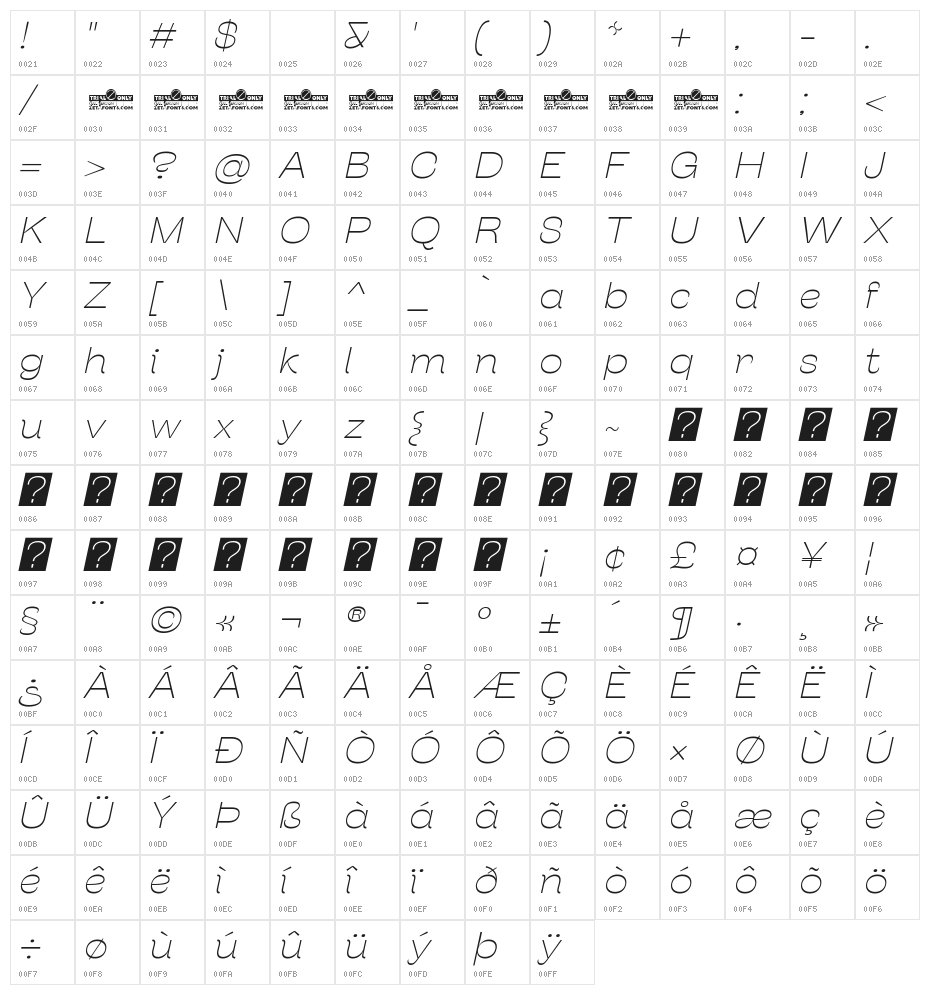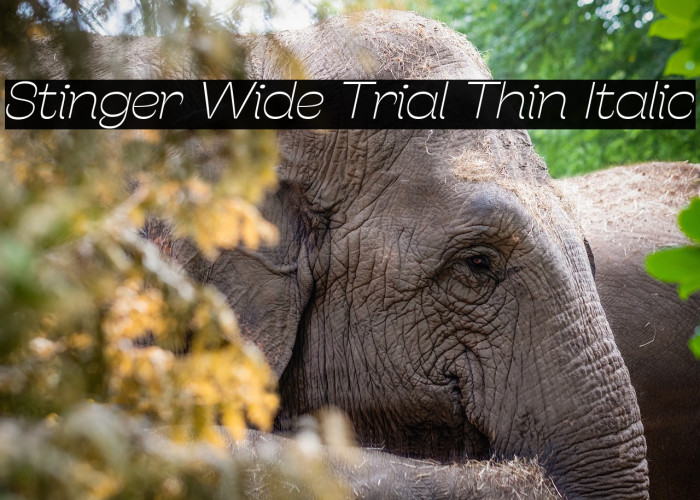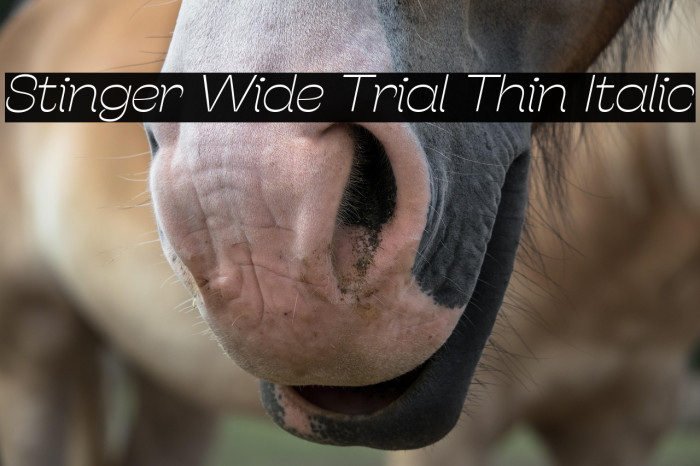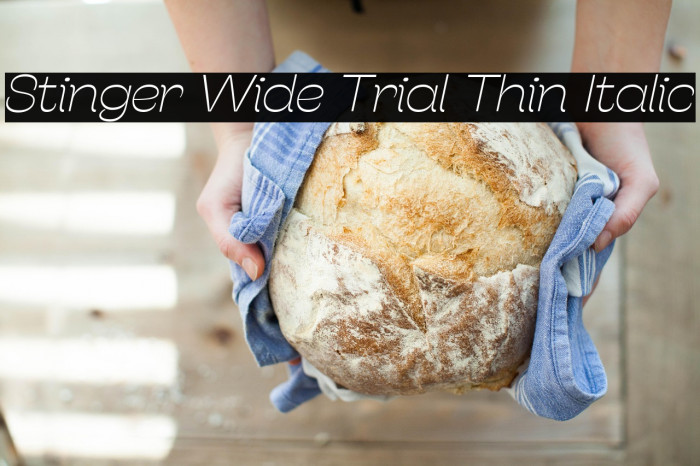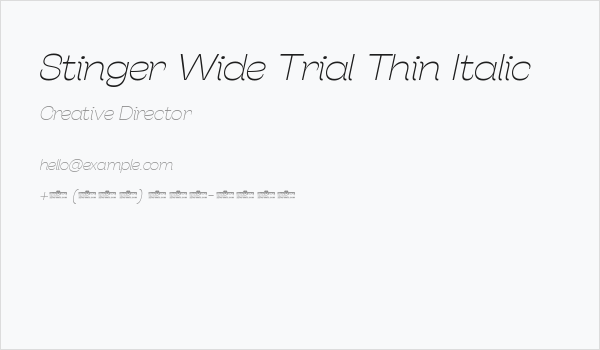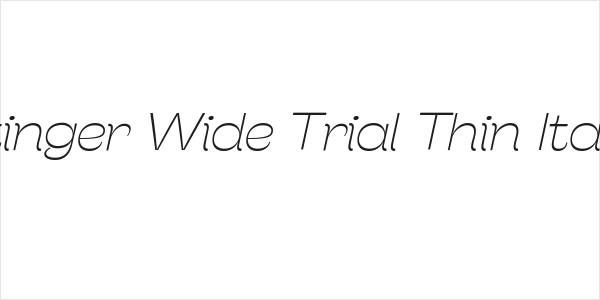
Stinger Wide Trial Thin Italic Font
Stinger Wide Trial Thin Italic Description
This font features a sleek, modern design with a thin, italicized style. The characters are elegantly elongated, giving a sense of fluidity and motion. The uppercase and lowercase letters maintain a consistent width, contributing to a harmonious and balanced appearance. The numerals and special characters are designed with the same attention to detail, ensuring uniformity across the font. The overall aesthetic is clean and sophisticated, making it suitable for contemporary design projects.
| Proposed Projects | Ideal for fashion magazines, modern branding, and elegant invitations. |